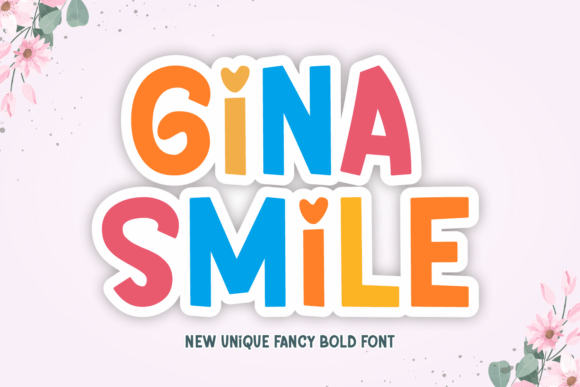
Gina Smile Font: Elevate Your Narratives and Designs with a Unique Masterpiece
In the world of typography, fonts play a crucial role in conveying emotions, telling stories, and creating a lasting impression. Among the numerous fonts available, the Gina Smile font stands out as a unique masterpiece that seamlessly combines wit and creativity. Engineered with a whimsical touch, this font has been artfully designed to be the perfect lettering for captivating story posts, vivacious life tales, and eye-catching posters.
The Genesis of Gina Smile Font
The Gina Smile font is a product of meticulous craftsmanship, born out of a passion to create a typography that not only speaks but also tells a story. Its creators aimed to design a font that would be more than just a collection of letters; they envisioned a style statement that would enlivens every story it narrates and every design it graces.
With its whimsical touch, the Gina Smile font brings a fresh and lively feel to any narrative or design. It’s a font that understands the nuances of storytelling and the importance of visual appeal in grabbing the audience’s attention. Whether it’s a captivating story post, a vivacious life tale, or an eye-catching poster, the Gina Smile font is engineered to make a lasting impression.
Key Features of the Gina Smile Font
- Unique and Creative Design: The Gina Smile font boasts a unique design that sets it apart from other fonts. Its creative elements make it an ideal choice for those looking to add a touch of personality to their narratives or designs.
- Whimsical Touch: The font’s whimsical touch adds a playful and lively feel to any text, making it perfect for story posts, life tales, and posters.
- Versatility: The Gina Smile font is versatile and can be used across various platforms and mediums, from digital stories to print materials.
- Easy to Read: Despite its unique and creative design, the Gina Smile font remains easy to read, ensuring that the message is conveyed clearly and effectively.
Applications of the Gina Smile Font
The Gina Smile font is not just limited to one specific use; its versatility allows it to be applied across a wide range of projects and mediums. Here are some of the key areas where this font can make a significant impact:
- Story Posts: For bloggers, writers, and content creators, the Gina Smile font can add a personal touch to story posts, making them more engaging and relatable.
- Life Tales: When it comes to sharing life experiences or anecdotes, the Gina Smile font can help convey the emotions and personality behind the story.
- Posters: For designers and marketers, this font can be a great addition to posters, adding a creative and eye-catching element that grabs attention.
- Digital and Print Media: The Gina Smile font can be used in a variety of digital and print materials, including magazines, brochures, flyers, and more.
Why Choose the Gina Smile Font?
In a world where typography plays a crucial role in communication and design, choosing the right font can make all the difference. Here are some reasons why the Gina Smile font stands out as a preferred choice:
- Creativity and Uniqueness: The Gina Smile font offers a fresh perspective with its unique and creative design, allowing users to stand out from the crowd.
- Emotional Connection: With its whimsical touch, this font can help create an emotional connection with the audience, making the narrative or design more relatable and engaging.
- Versatility: The font’s versatility makes it suitable for a wide range of projects and mediums, offering users the flexibility to experiment with different applications.
The Gina Smile font is more than just a typography; it’s a style statement that brings creativity, uniqueness, and a whimsical touch to any narrative or design. With its easy-to-read design, versatility, and emotional appeal, this font is poised to make a significant impact in the world of storytelling and design. Whether you’re a blogger, writer, designer, or marketer, the Gina Smile font offers a fresh perspective and a creative edge that can elevate your projects to new heights. So, why settle for ordinary fonts when you can make a statement with the Gina Smile font?